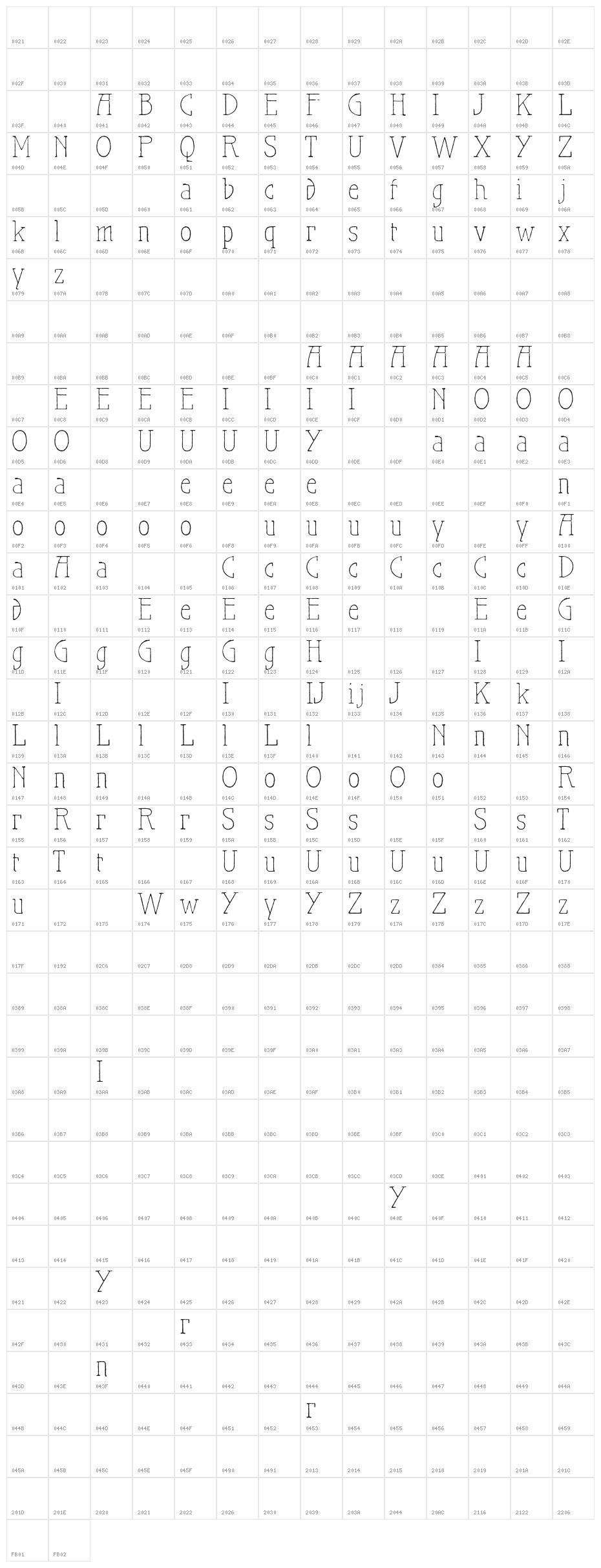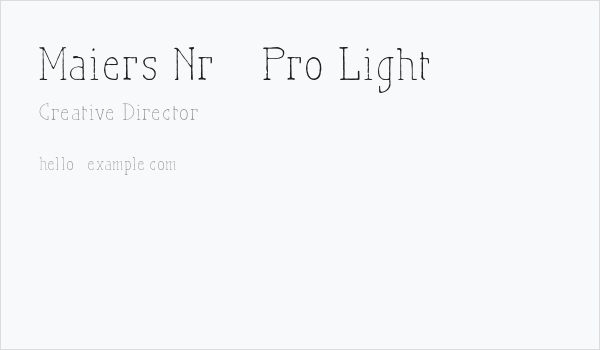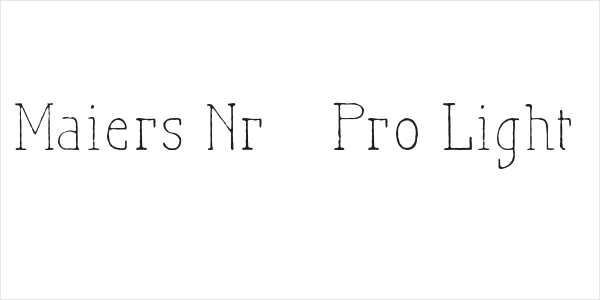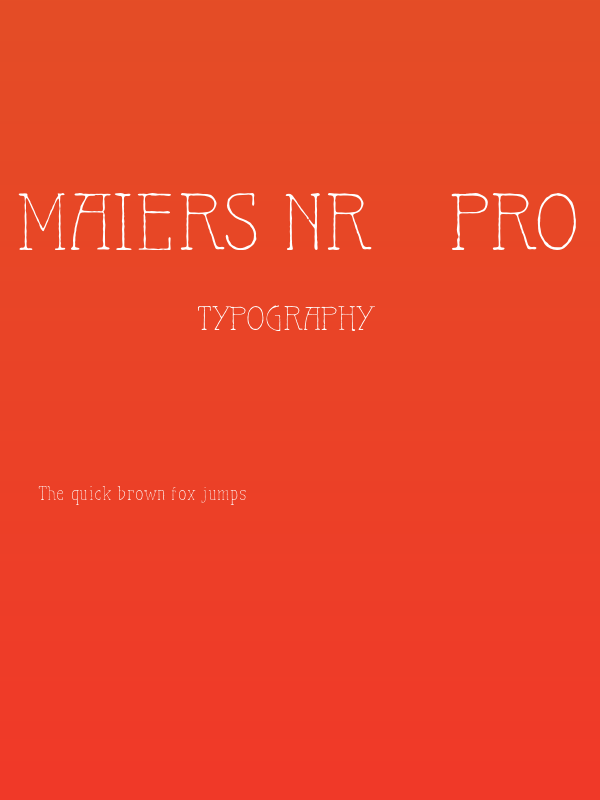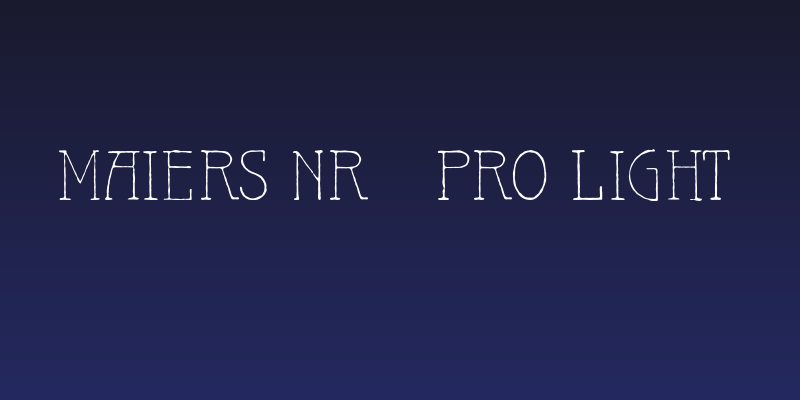
Maiers Nr21 Pro Light Font
Maiers Nr21 Pro Light Description
This font features a unique blend of modern and vintage aesthetics, characterized by its thin, elongated strokes and subtle serifs. The uppercase letters exhibit a distinct angularity, while the lowercase letters maintain a more fluid and organic form. The overall appearance is slightly whimsical, with a hand-drawn quality that adds personality and charm. The numerals and special characters are consistent with the letterforms, maintaining the same delicate and artistic style. This font is well-suited for creative projects that require a touch of elegance and individuality.